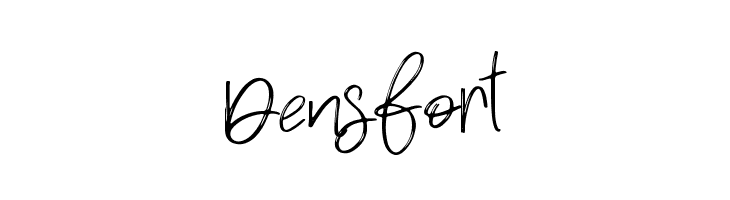
An elegant script font with flowing, cursive letters and a classic style.
Elegant script font with a handwritten style.
A hand-drawn, whimsical font with irregular strokes and playful character.
A playful and energetic script font with fluid, connected strokes.